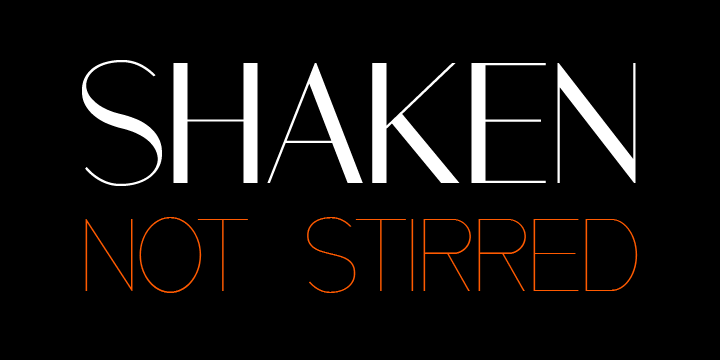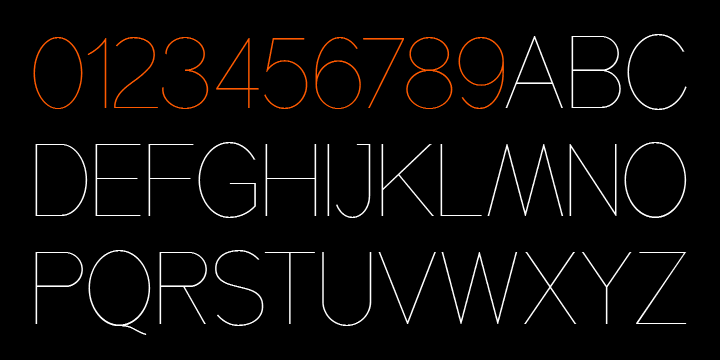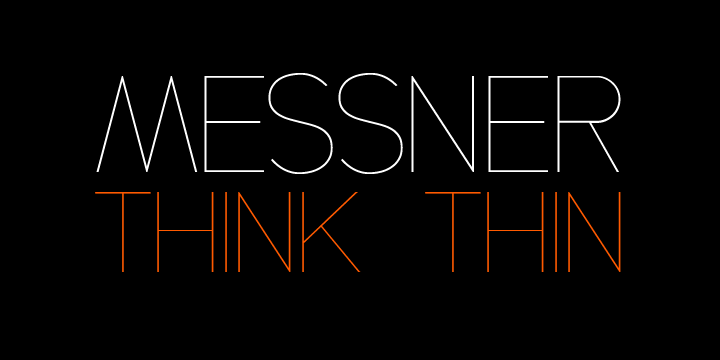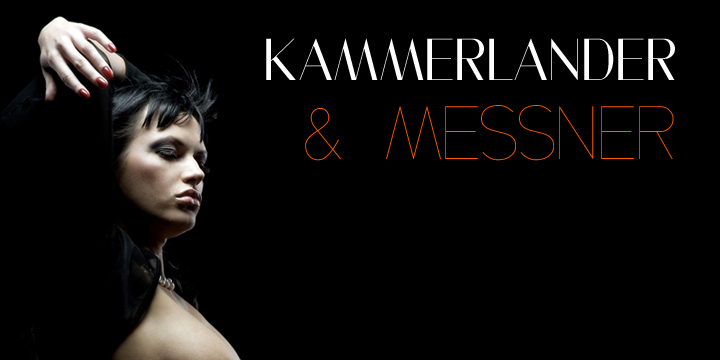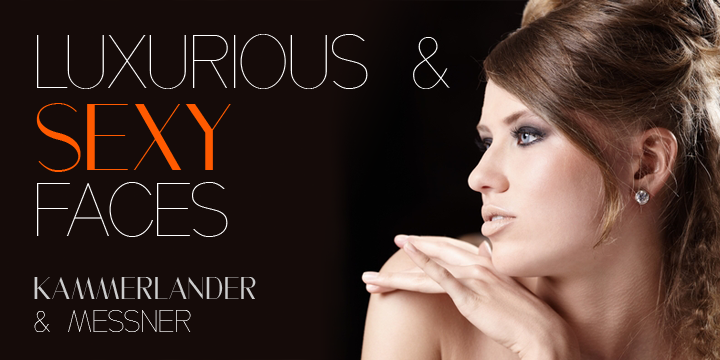
Messner Thin (1 font)
From Juraj Chrastina Type
Messner is an extra-light all-caps face, especially suitable for larger sizes. Simplicity, purity and readability of its classic forms were on the first place in the creation process.
Messner was a resource for designing the Kammerlander family and their combination looks very natural.